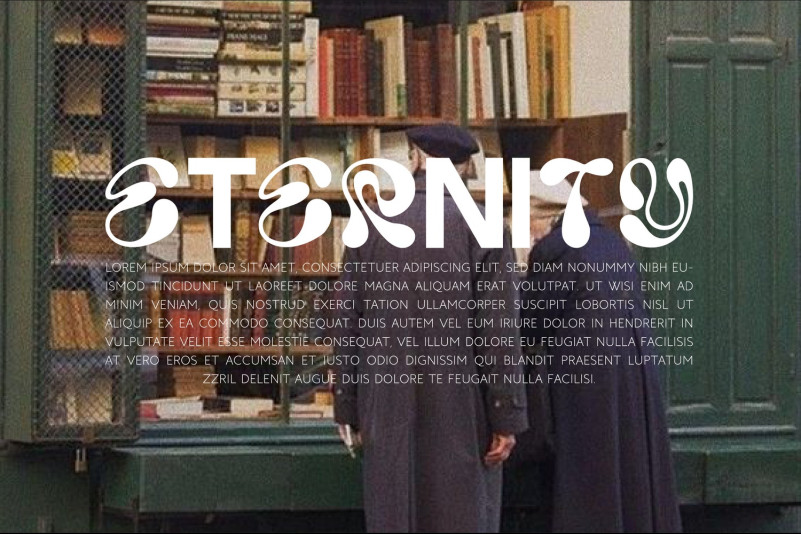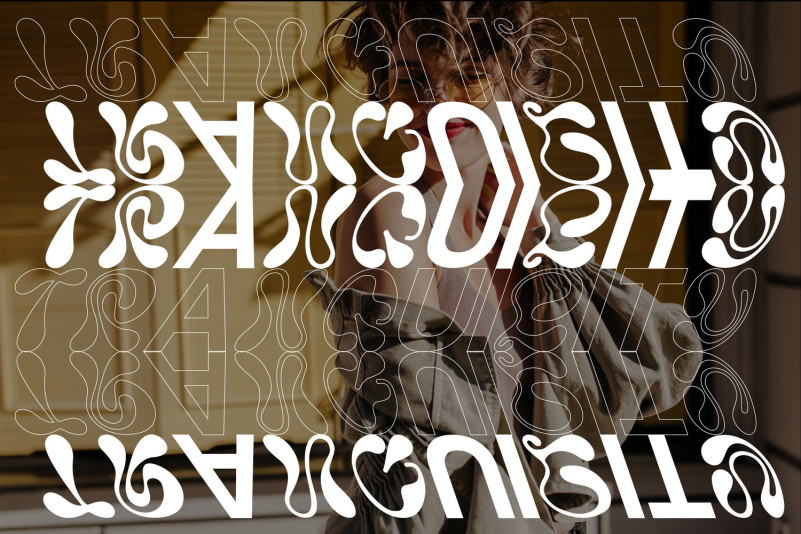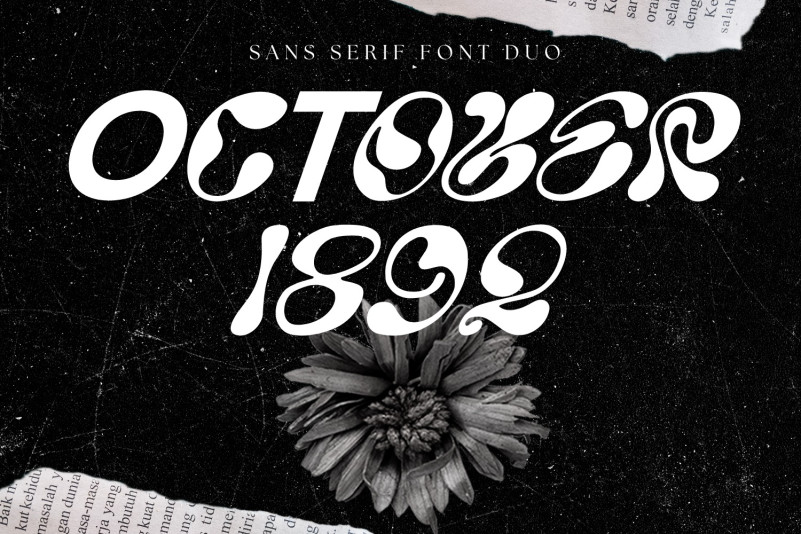
October 1892 Font
October 1892 Display Font is a brand new, unique & nostalgic typeface I like so much that I wanted to make it super personal, with upper and lowercase is complemented by some of the same alternatives made with love. Perfect for editorial projects, Logo design, Clothing Branding, product packaging, magazine headers, or simply as a stylish text overlay to any background image.